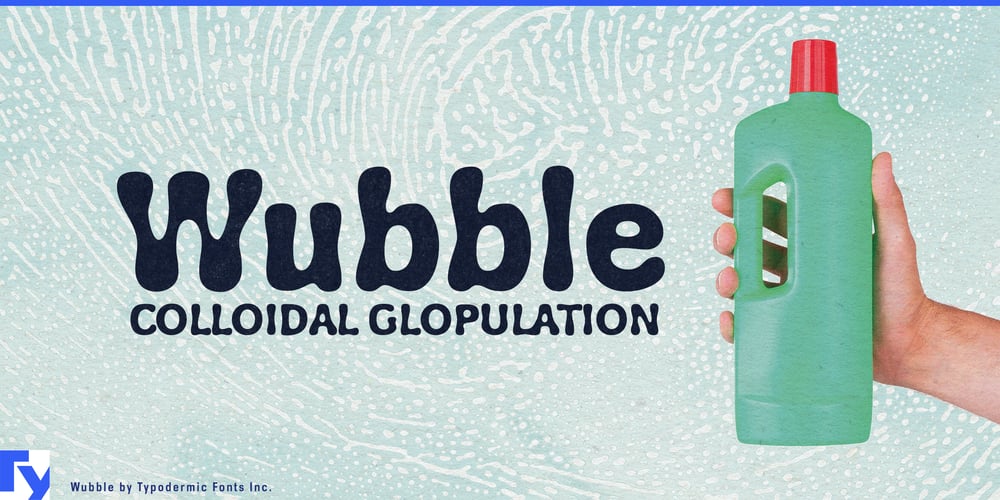
Wubble Font Family was designed by Ray Larabie and published by Typodermic. Wubble contains 1 styles and family package options. Welcome to Wubble Labs—where we don’t just think outside the box, we dissolve it! Our team of mad scientists has been busy experimenting with the latest in colloidal glopulation technology, and we’re thrilled to present our latest creation: Wubble, the blobbiest, squishiest, most liquid font you’ve ever seen! We know what you’re thinking, “liquid font? What the heck does that even mean?” Well, let us tell you, Wubble is more than just a font—it’s a living, breathing, dripping typographical workfish. Each letter is like a tiny blob of ooze, flowing and shifting in a mesmerizing dance of liquidy goodness. But don’t let Wubble’s gooey exterior fool you—this font is the product of years of careful research and development. Our team of scientists have spent countless hours studying the precise characteristics of colloidal glopulation, perfecting every last detail to bring you the finest liquid font ever produced. So if you’re ready to take your design game to the next level, come on down to Wubble Labs and see what all the fuss is about. We promise, once you go Wubble, you’ll never go back! Most Latin-based European writing systems are supported, including the following languages. Afaan Oromo, Afar, Afrikaans, Albanian, Alsatian, Aromanian, Aymara, Bashkir (Latin), Basque, Belarusian (Latin), Bemba, Bikol, Bosnian, Breton, Cape Verdean, Creole, Catalan, Cebuano, Chamorro, Chavacano, Chichewa, Crimean Tatar (Latin), Croatian, Czech, Danish, Dawan, Dholuo, Dutch, English, Estonian, Faroese, Fijian, Filipino, Finnish, French, Frisian, Friulian, Gagauz (Latin), Galician, Ganda, Genoese, German, Greenlandic, Guadeloupean Creole, Haitian Creole, Hawaiian, Hiligaynon, Hungarian, Icelandic, Ilocano, Indonesian, Irish, Italian, Jamaican, Kaqchikel, Karakalpak (Latin), Kashubian, Kikongo, Kinyarwanda, Kirundi, Kurdish (Latin), Latvian, Lithuanian, Lombard, Low Saxon, Luxembourgish, Maasai, Makhuwa, Malay, Maltese, Māori, Moldovan, Montenegrin, Ndebele, Neapolitan, Norwegian, Novial, Occitan, Ossetian (Latin), Papiamento, Piedmontese, Polish, Portuguese, Quechua, Rarotongan, Romanian, Romansh, Sami, Sango, Saramaccan, Sardinian, Scottish Gaelic, Serbian (Latin), Shona, Sicilian, Silesian, Slovak, Slovenian, Somali, Sorbian, Sotho, Spanish, Swahili, Swazi, Swedish, Tagalog, Tahitian, Tetum, Tongan, Tshiluba, Tsonga, Tswana, Tumbuka, Turkish, Turkmen (Latin), Tuvaluan, Uzbek (Latin), Venetian, Vepsian, Võro, Walloon, Waray-Waray, Wayuu, Welsh, Wolof, Xhosa, Yapese, Zapotec Zulu and Zuni.